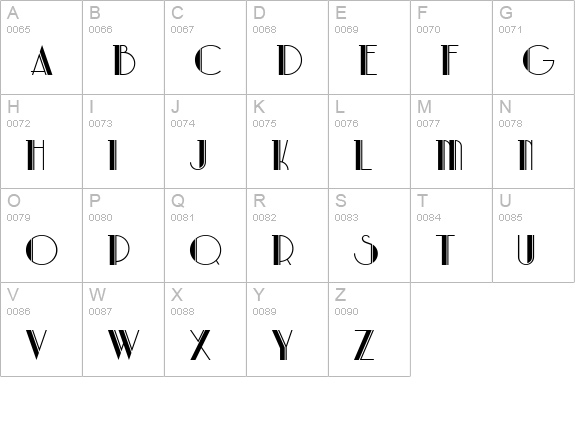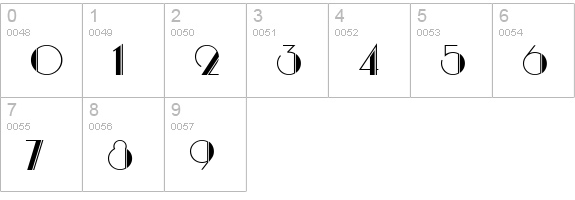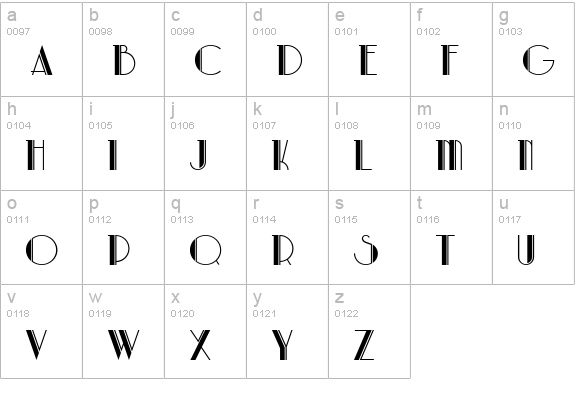
Park Lane NF is a stylish and elegant font that exudes sophistication and charm. With its sleek lines and graceful curves, this font is perfect for adding a touch of luxury to your designs. The timeless appeal of Park Lane NF makes it suitable for a wide range of projects, from branding to invitations to signage. What makes Park Lane NF even more attractive is that it is completely free to download at FontsMarket.com. This means you can easily access this beautiful font and use it in your creative projects without any cost. Don't miss out on the opportunity to enhance your designs with the exquisite Park Lane NF font, available for free at FontsMarket.com.